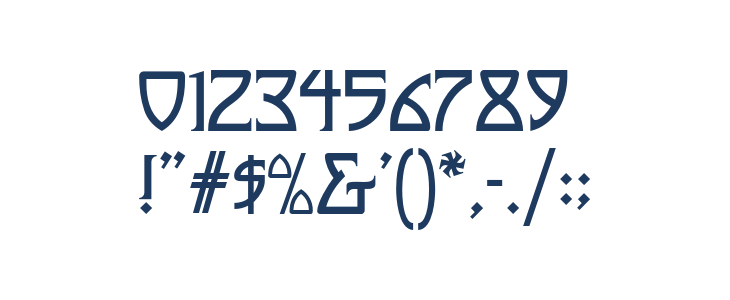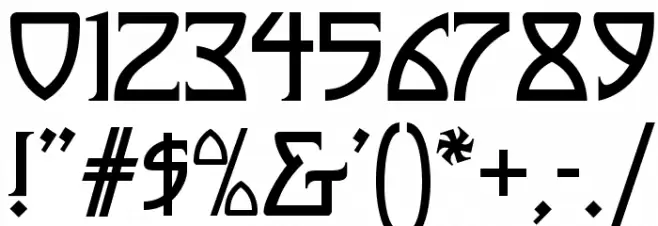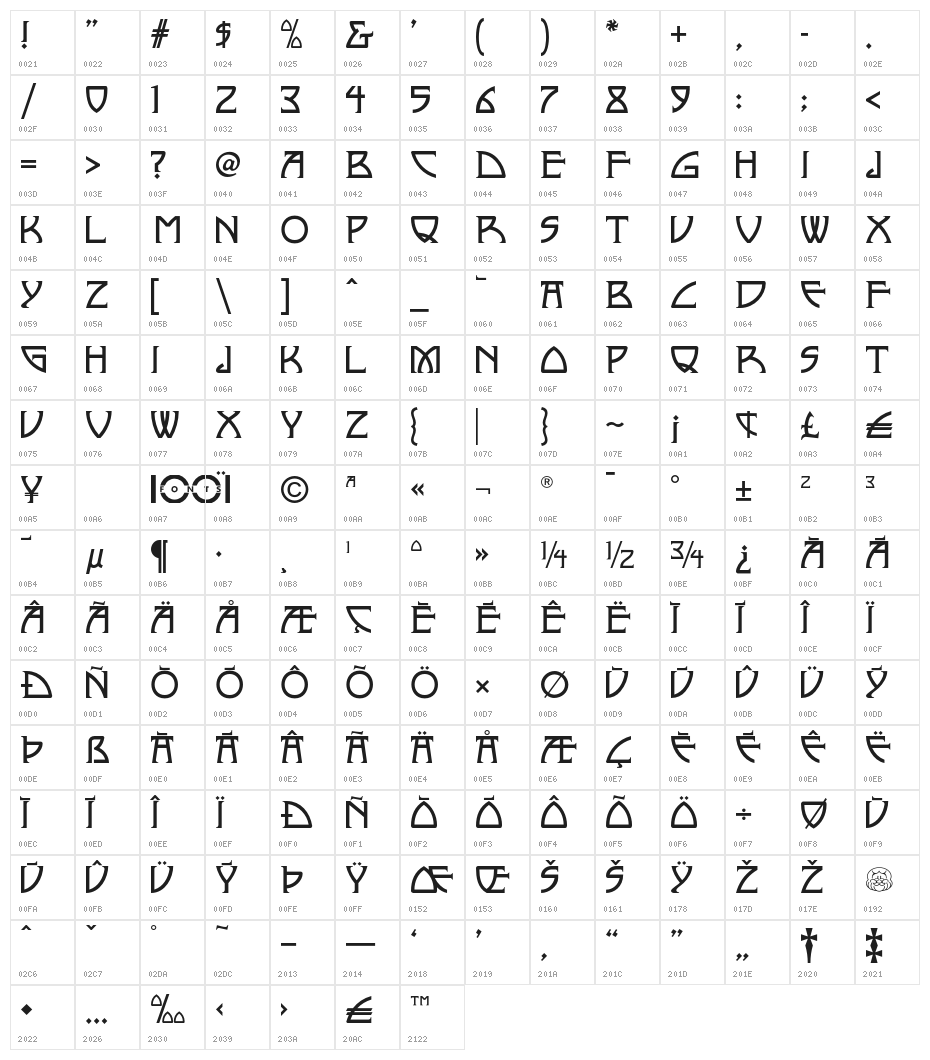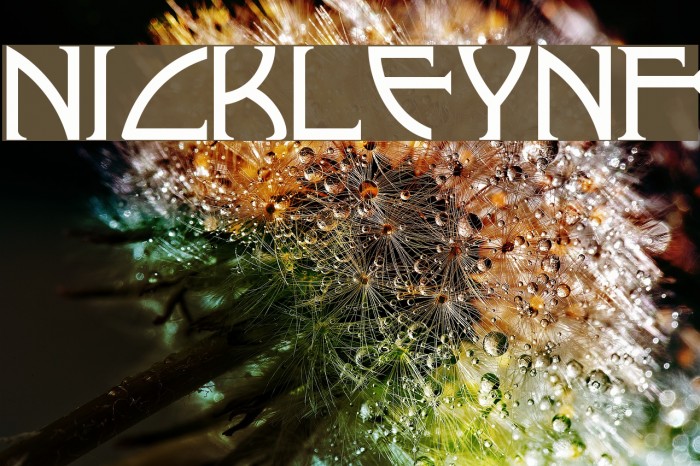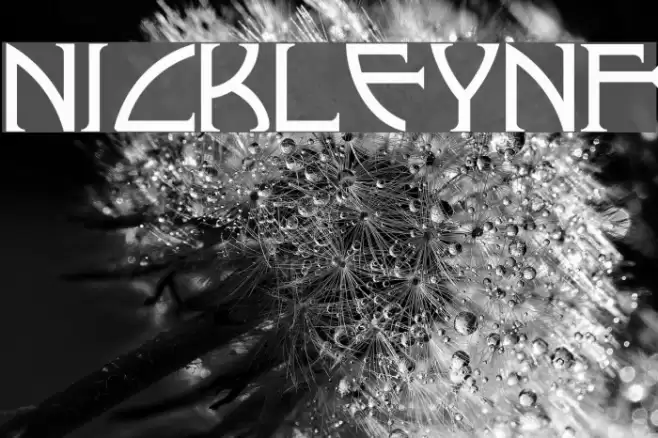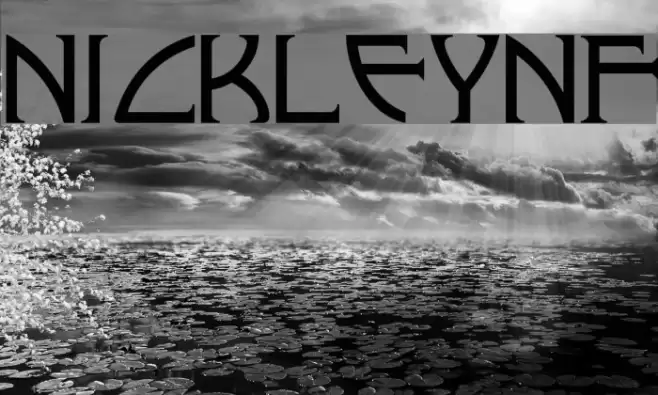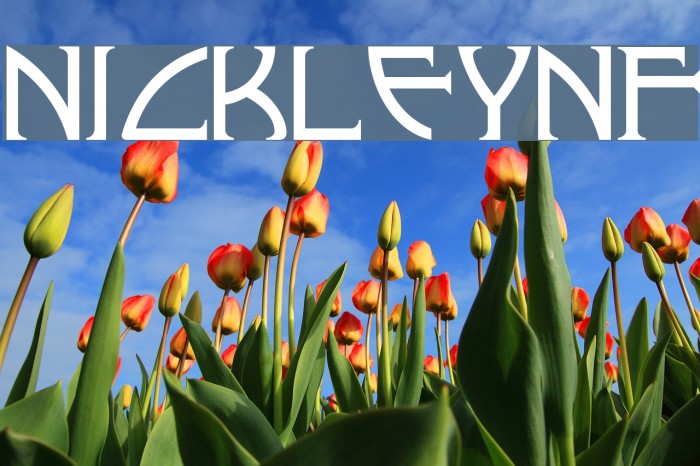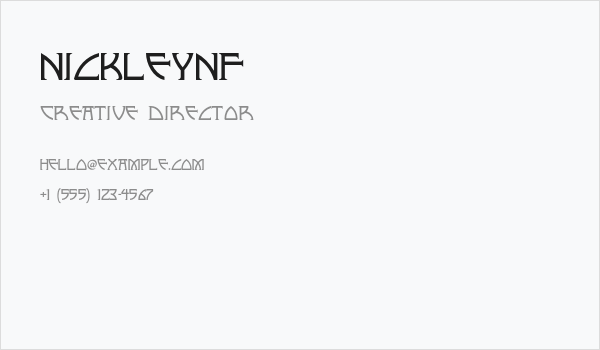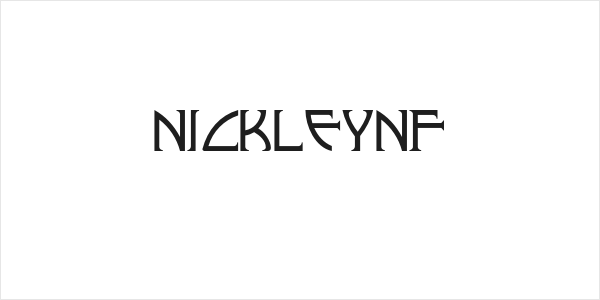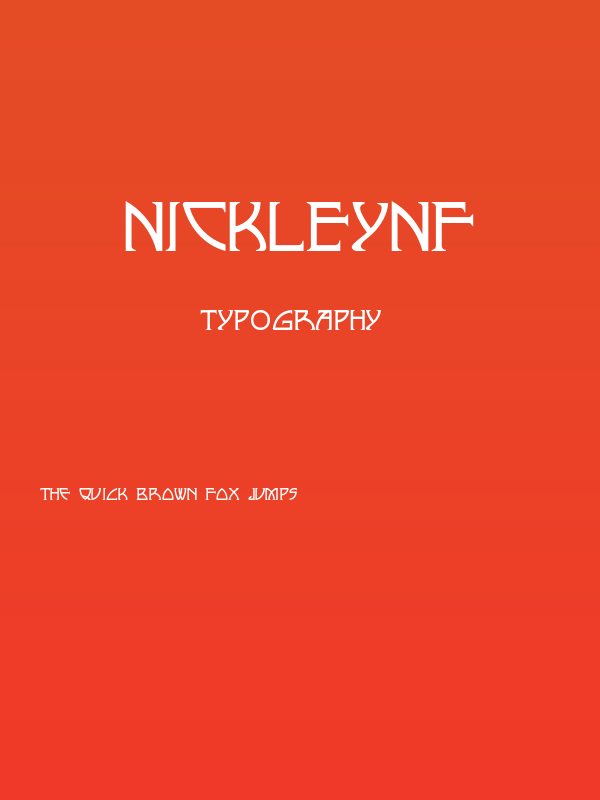
NickleyNF Font
NickleyNF Description
This font features a bold and angular design, characterized by sharp edges and geometric shapes. The uppercase letters have a distinct, futuristic appearance with a mix of straight lines and curves, creating a dynamic and energetic feel. The lowercase letters maintain the same angular style, ensuring consistency throughout the typeface. Numbers and special characters are designed to match the overall aesthetic, with a strong emphasis on symmetry and balance. The font's unique style makes it stand out, offering a modern twist on traditional letterforms.